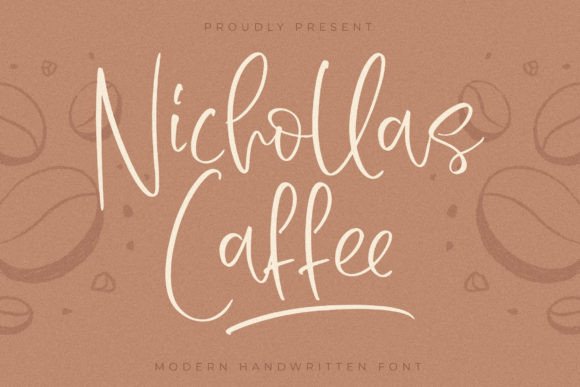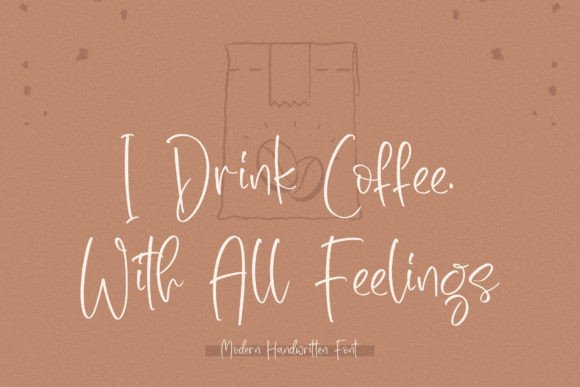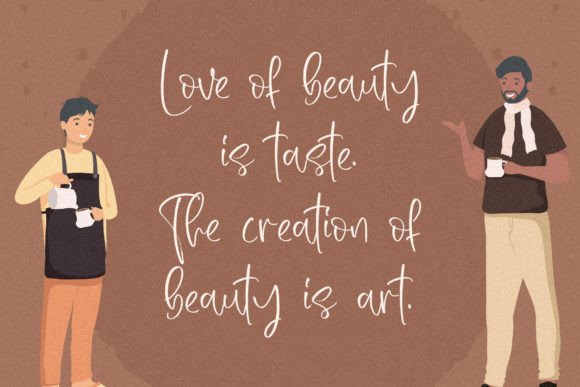
About Nichollas Caffee Font Download
The Nichollas Caffee Font Download is an exquisite handwritten typeface designed to add sophistication and style to your projects. Inspired by classic calligraphy yet refreshed with modern elegance, this font combines timeless charm with contemporary appeal. Whether you’re working on personal stationery, digital designs, or branding projects, Nichollas Caffee provides a graceful and versatile solution.
A Classy Handwritten Typeface with Modern Appeal
The Nichollas Caffee script font blends elegant calligraphic influences with smooth handwritten strokes. As a result, it feels stylish, authentic, and polished. Furthermore, its natural rhythm makes it suitable for everything from small stationery details to large-scale designs like posters and billboards.
Fonts with calligraphic touches always enhance stationery projects. The Nichollas Caffee Font is ideal for wedding invitations, thank you cards, birthday notes, and seasonal greetings. Because of its flowing curves, every card feels personal and unique. In addition, it ensures that your designs capture warmth and sophistication.
Branding and Logo Design with Nichollas Caffee Font
Typography plays a key role in creating brand identity. The Nichollas Caffee handwritten font is an excellent choice for boutique logos, packaging, and advertising. Its elegant script style communicates professionalism and charm. Therefore, it is especially suitable for luxury, fashion, lifestyle, and creative brands.
Posters, Editorials, and Inspirational Quotes
The Nichollas Caffee Font Download also performs beautifully in editorial layouts, posters, book covers, and social media quotes. Its legibility ensures clarity, while its expressive curves add character. Consequently, it is a reliable option for both print and digital content.
Digital Design and Social Media Projects
In today’s fast-moving digital space, fonts must work well across multiple platforms. The Nichollas Caffee typeface integrates seamlessly into Instagram stories, Pinterest posts, YouTube thumbnails, and blogs. Because of its graceful handwritten flow, it makes digital designs stand out.
Why Designers Choose Nichollas Caffee Typeface
Designers value fonts that combine beauty with usability. The Nichollas Caffee handwritten script delivers elegance while staying versatile. Moreover, its timeless look ensures it remains trendy across future projects, making it a reliable choice for both professionals and hobbyists.